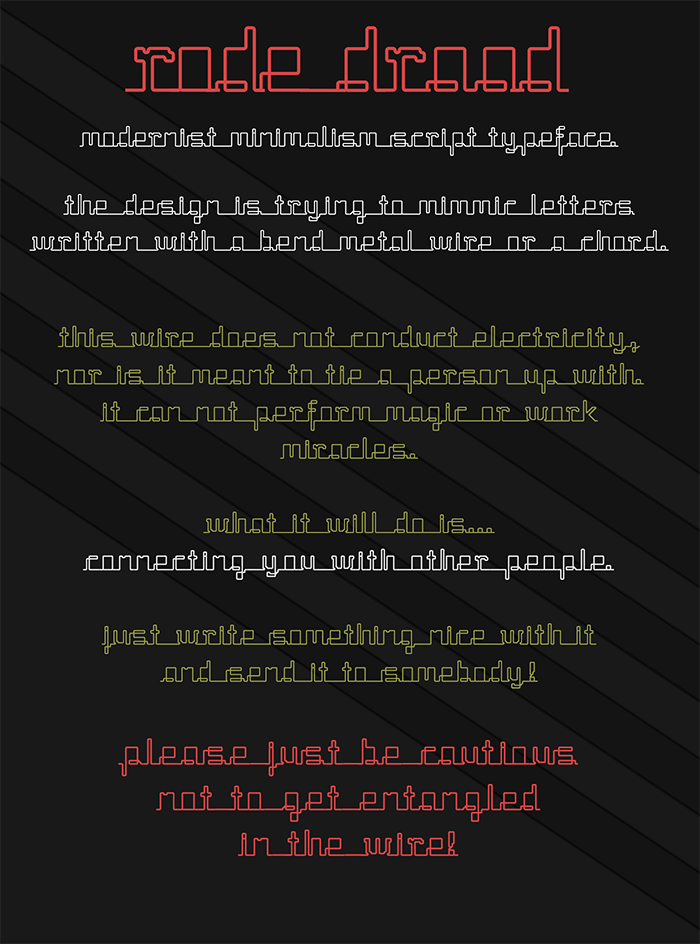
• Corded modernist minimalism script typeface design.
It is trying to mimmic letters written with a bend metal wire or a chord.
It is only in lowercase letters at the moment no numerals and only very limited punctuations. But It is still very fun to play around with.
And my apologies for putting a sting of glyphs with only a line showing in the numeral block but I did this to make the pangram for the font show up in when viewed from the gallery
looks nice at pixel view...